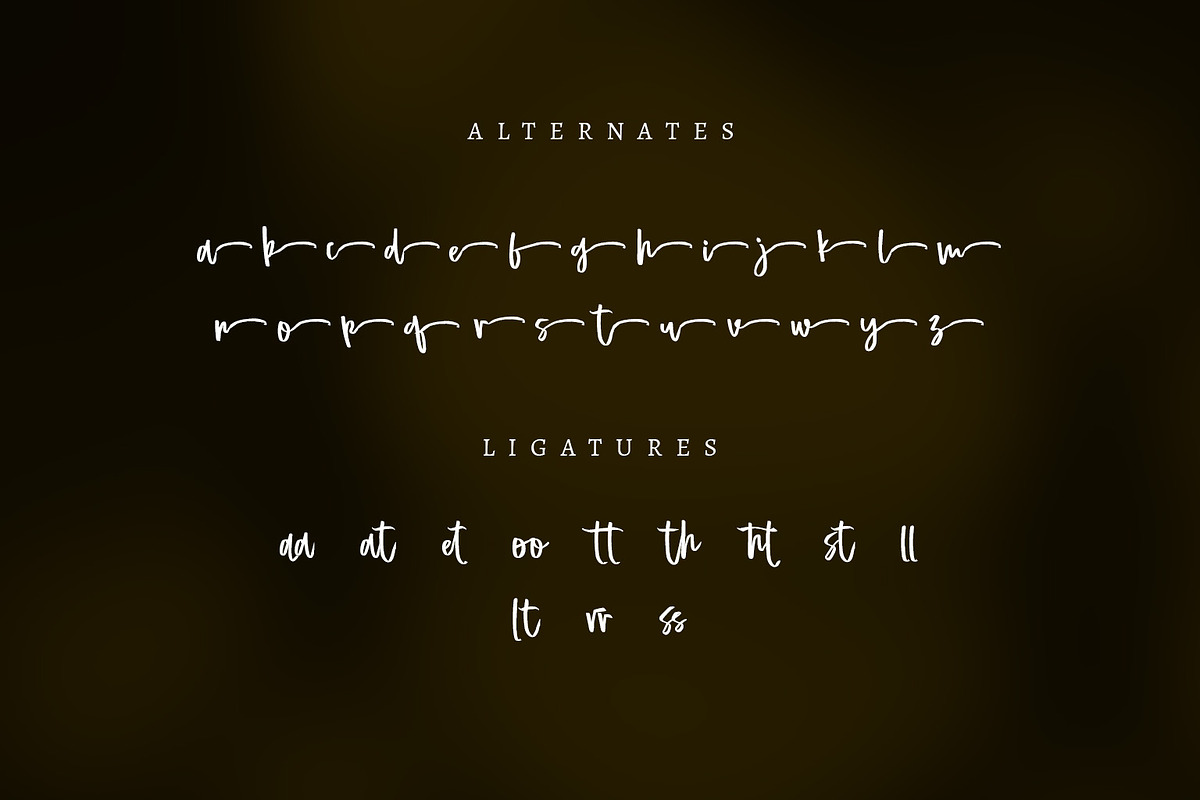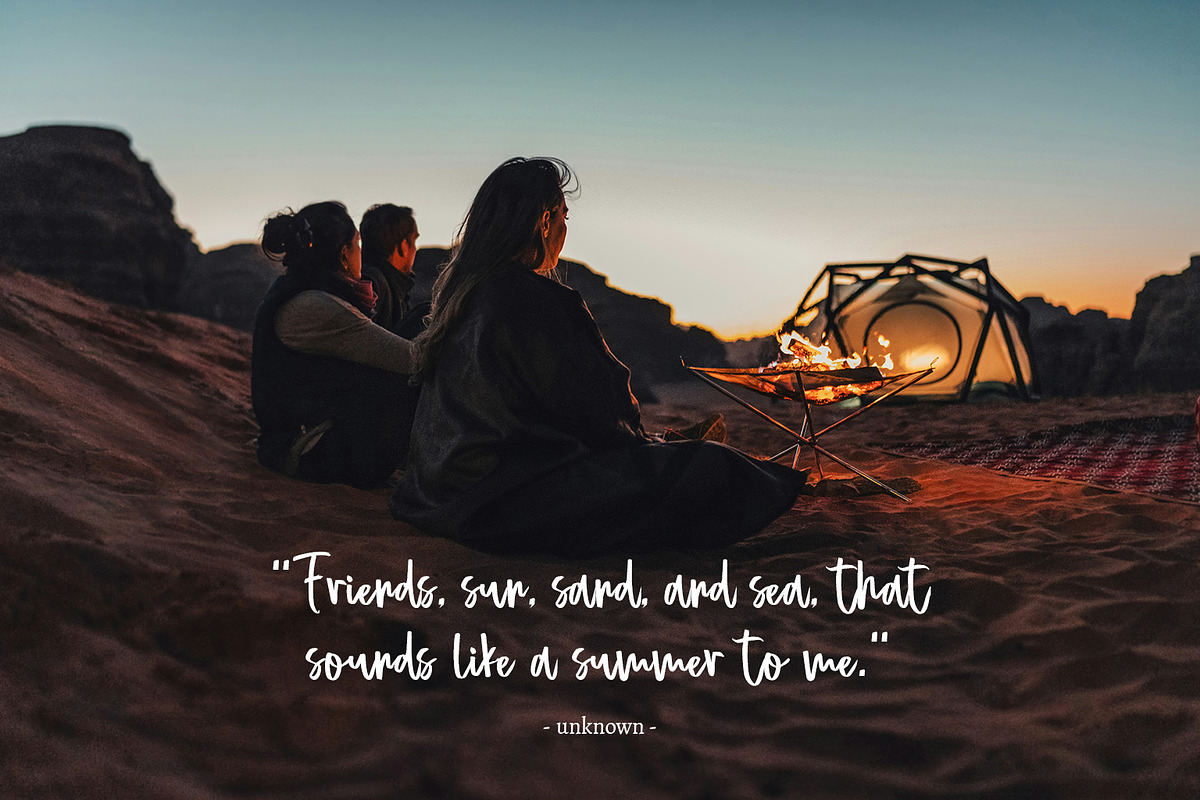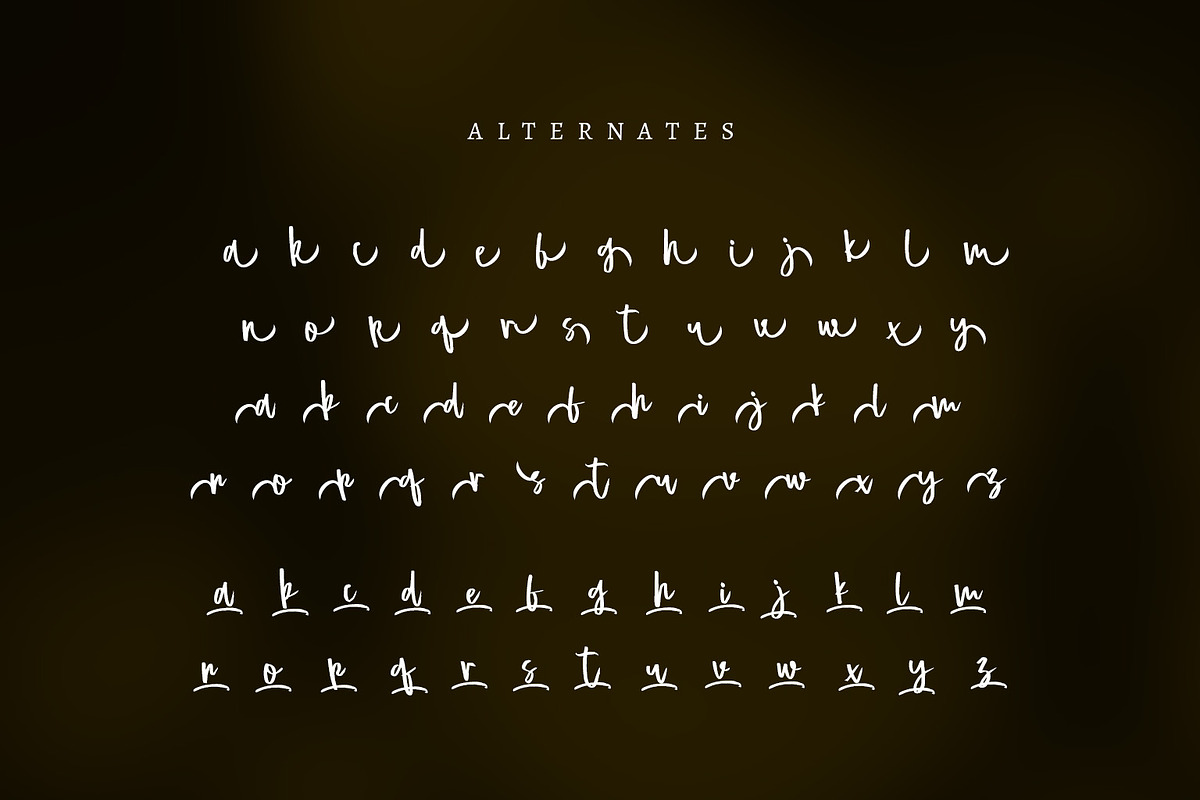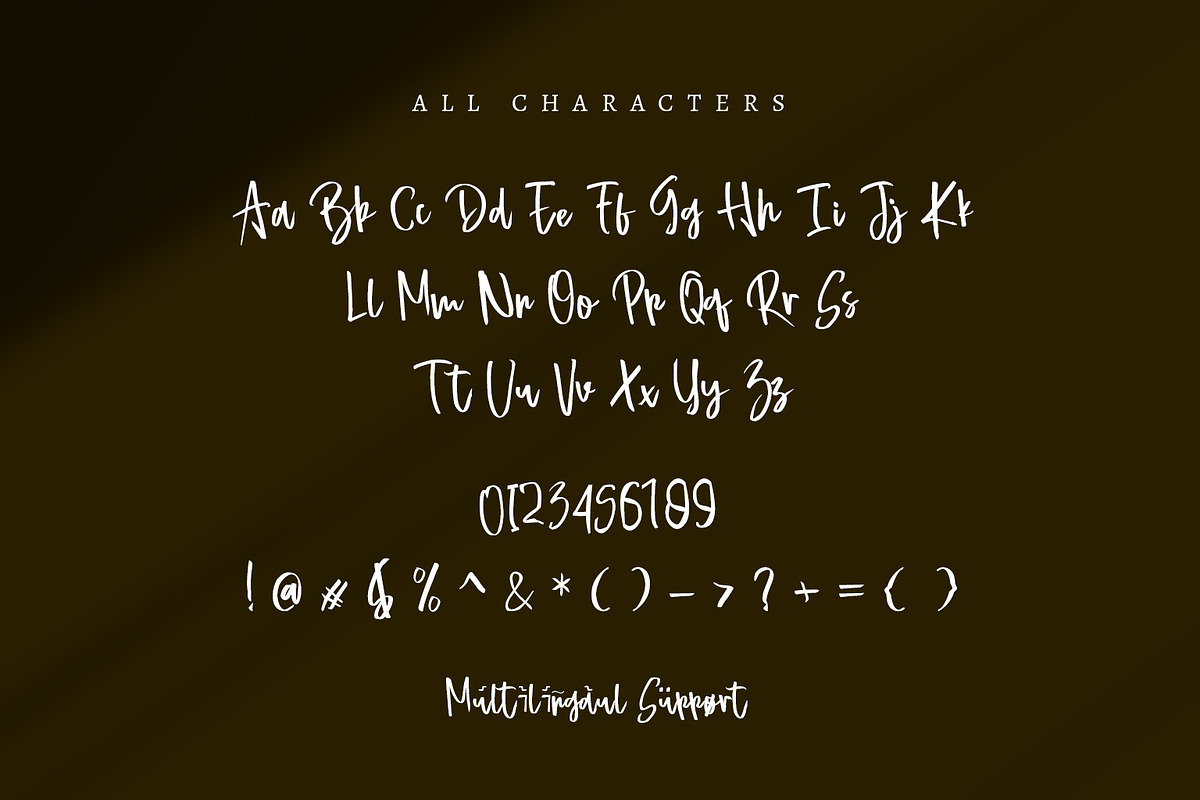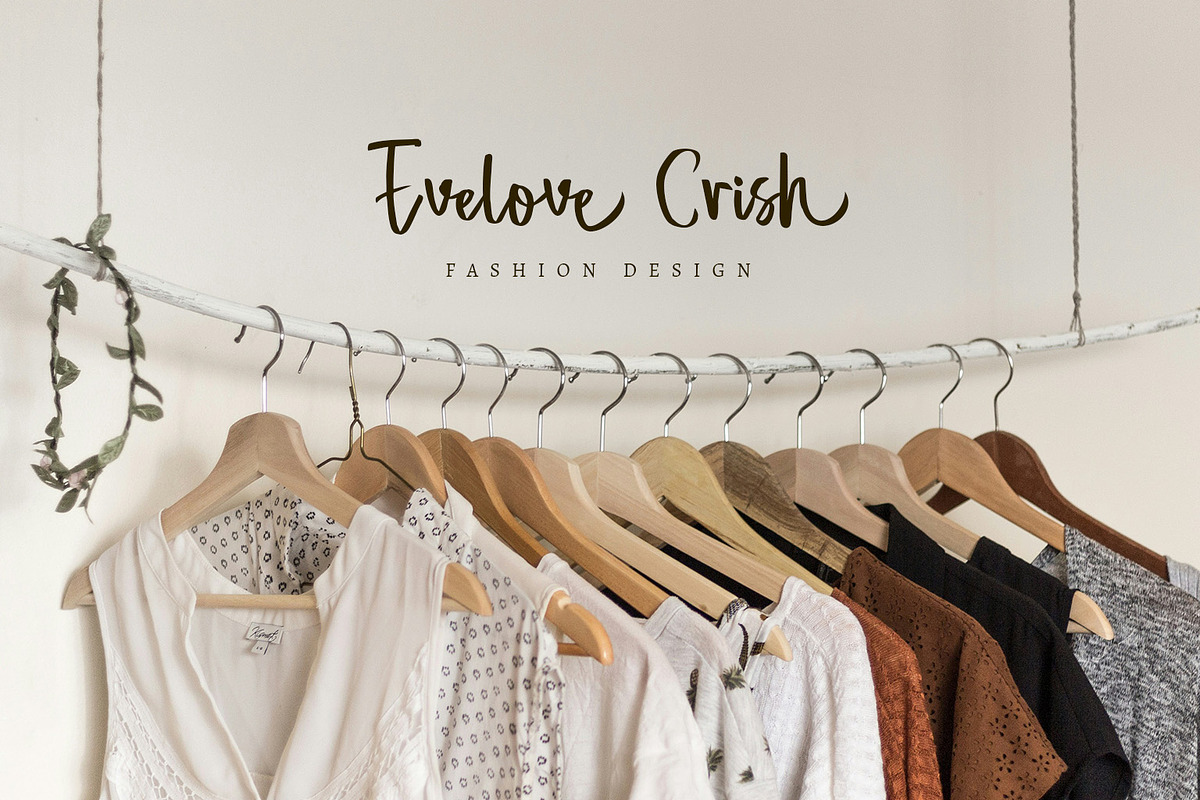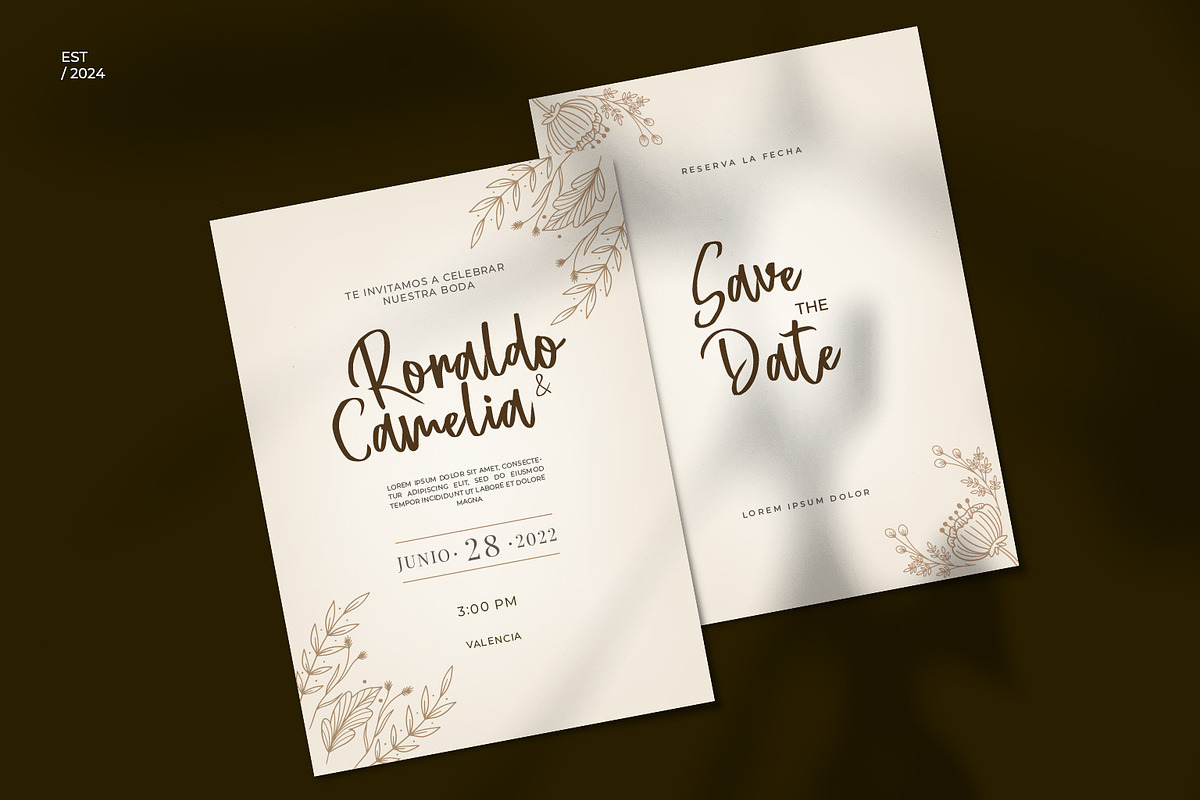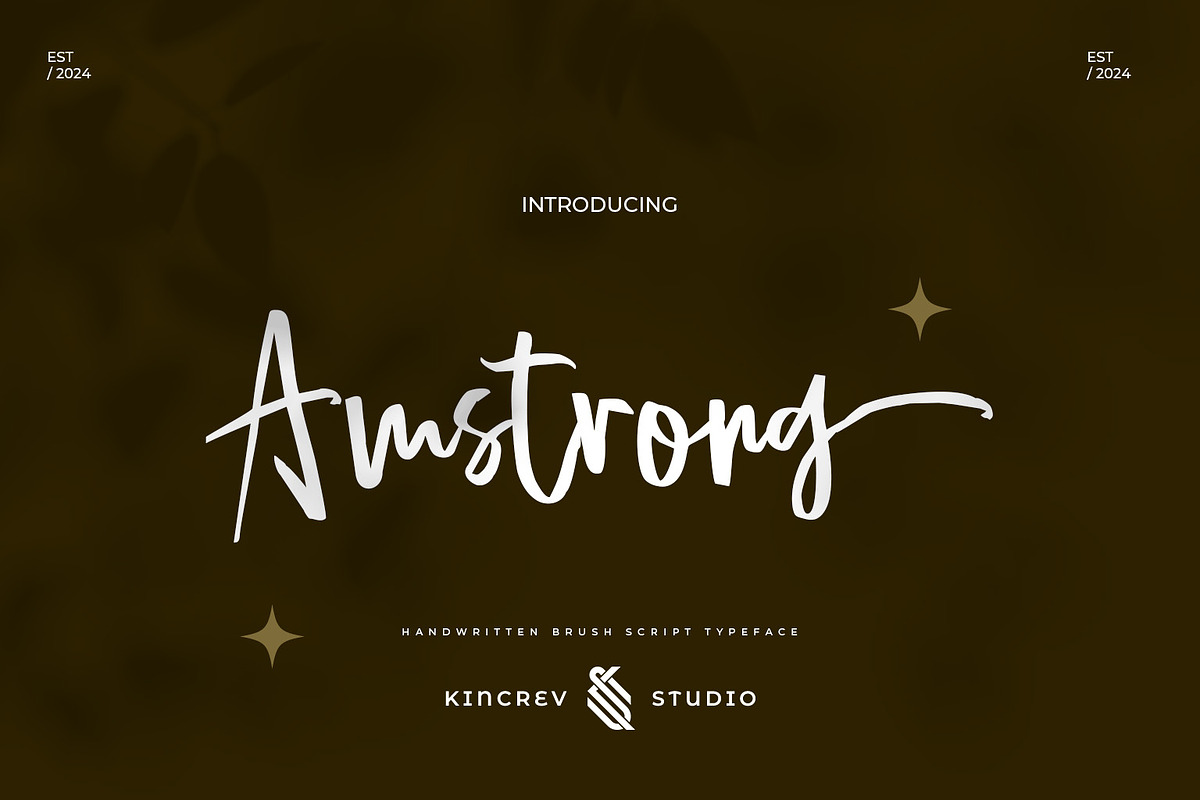
Amstrong - Handwritten Brush Script
Hello, Everyone! Ready to make your branding design outstanding? If you need to create a creative, modern and elegant look for your business, work on a poster for an event, or whatever your projects are, Amstrong - Handwritten Brush Script Typeface Font is the perfect one for you.
Amstrong, a Handwritten font is font for you to get your designs with creative, modern and elegant look. It is made in uppercase & lowercase letters which are easy on the eyes and nice to look at, and easy to read. This font is designed to bring your brandings to life and add a touch of modernity, fun and style.
Amstrong fits for any design projects, such as posters, banners, logos, book covers, album covers, quotes, invitations, greeting cards, name cards, headings, printed products, merchandise, social media, etc. Find out more ways to use this font by taking a look at the font preview.